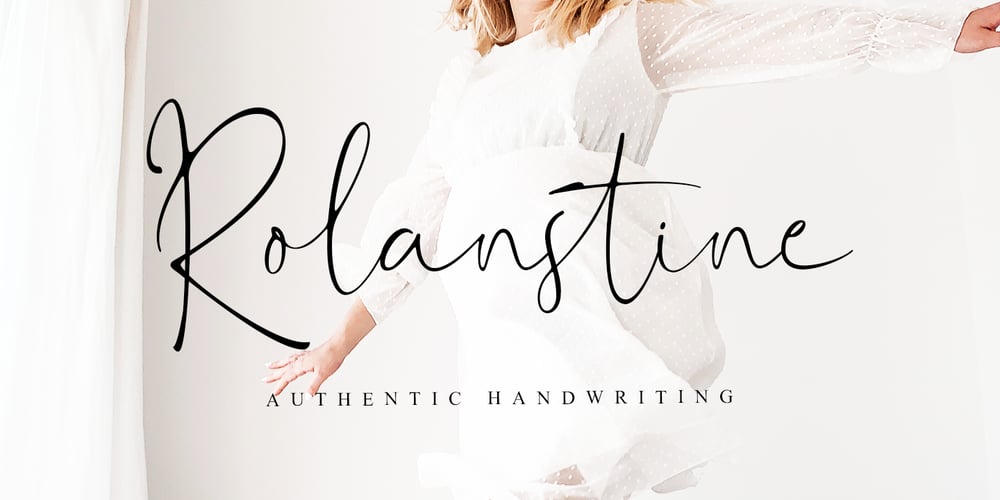
Rolanstine
Rolanstine font
Rolanstine Font Family was designed by Muhammad Mujibulloh and published by MJB Letters. Rolanstine contains 1 styles and family package options. Rolanstine is an authentic handwritten font with the strength of character in each letter so it is suitable for logos, signatures, branding designs, watermarks, posters, wedding designs and many more. I highly recommend using a program that supports OpenType features and Glyphs panels such as Adobe Illustrator, Adobe Photoshop CC, Adobe InDesign, or CorelDraw, so you can see and access all Glyph variations. This font is encoded with Unicode PUA, which allows full access to all additional characters without having special design software.Mac users can use Font Book, and Windows users can use Character Map to view and copy one of the extra characters to paste into your favorite text editor/application. PUA Encoded Characters – Fully accessible without additional design software How to access alternate glyphs? You can see it on this link: https://helpx.adobe.com/illustrator/using/special-characters.htmlWe really hope you enjoy it.Please don’t hesitate to drop us a message if you have any issues or queries send me a PM.Thanks for purchasing and have fun!